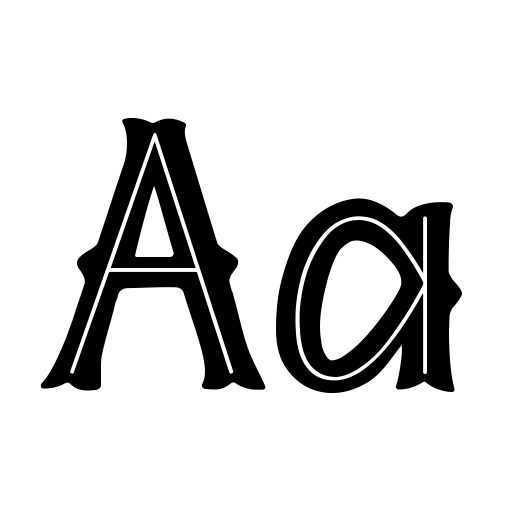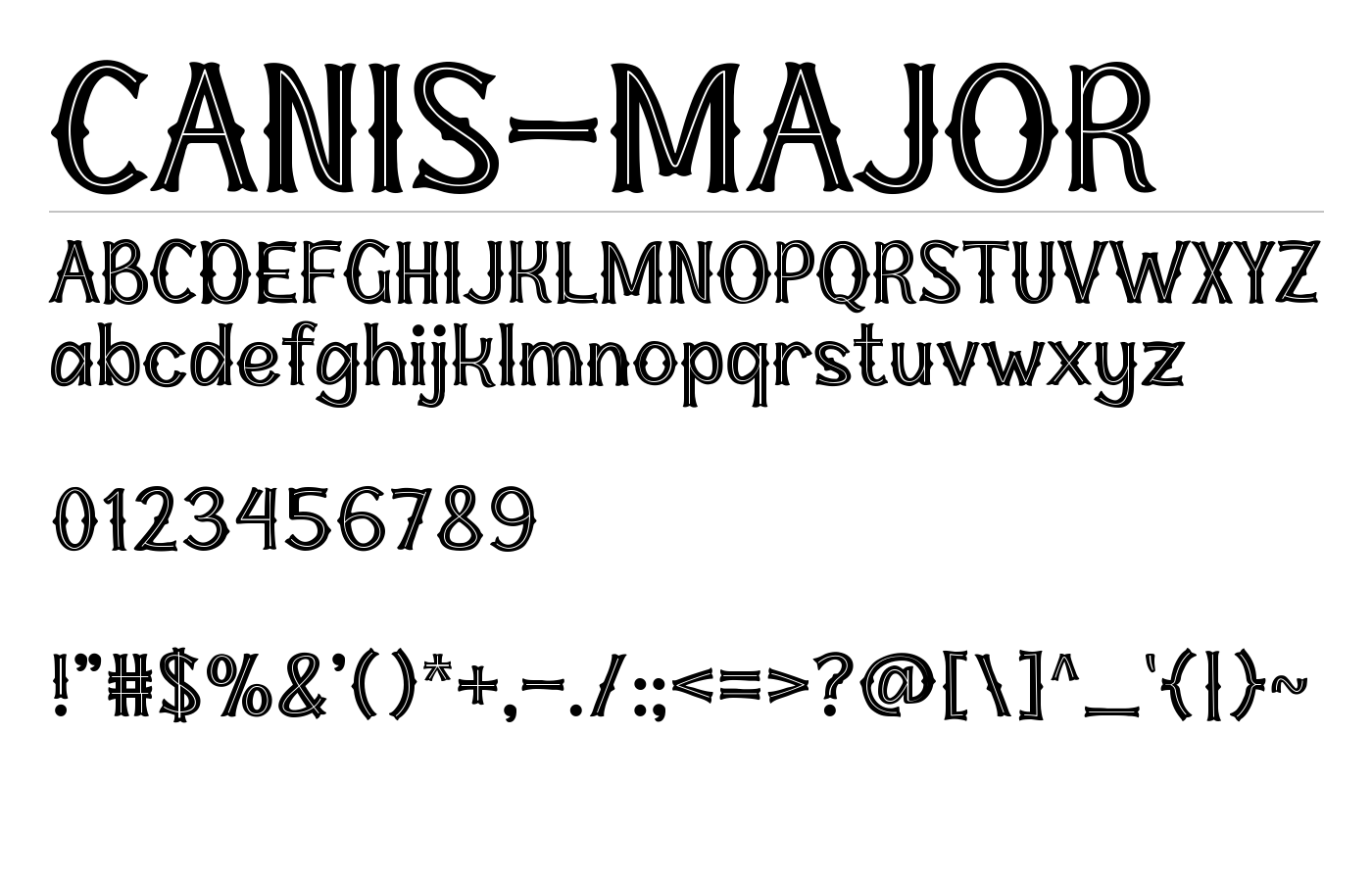
CANIS-MAJOR is a distinctive serif font with a vintage, slightly whimsical feel brought to life by its sharp serifs and delicate stroke contrasts. Its unique decorative details and moderate x-height make it stand out in headlines, logos, or creative projects that seek a playful yet elegant personality. This font works well for designs that want to evoke a sense of nostalgia while maintaining a strong, expressive presence.
CANIS-MAJOR Font